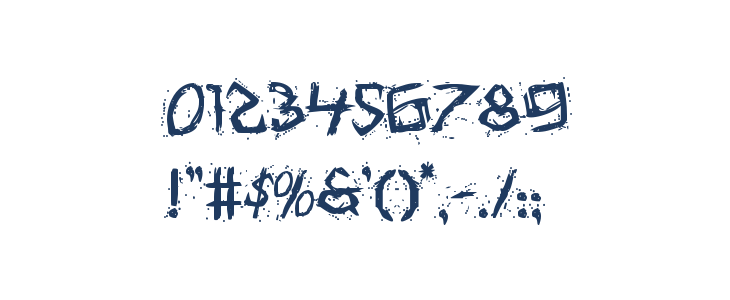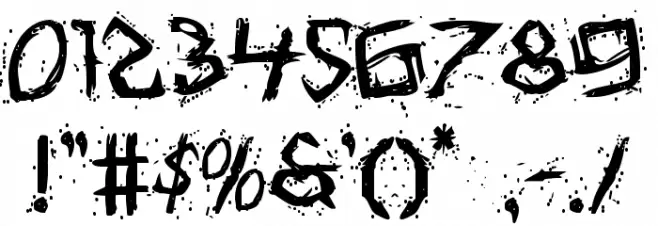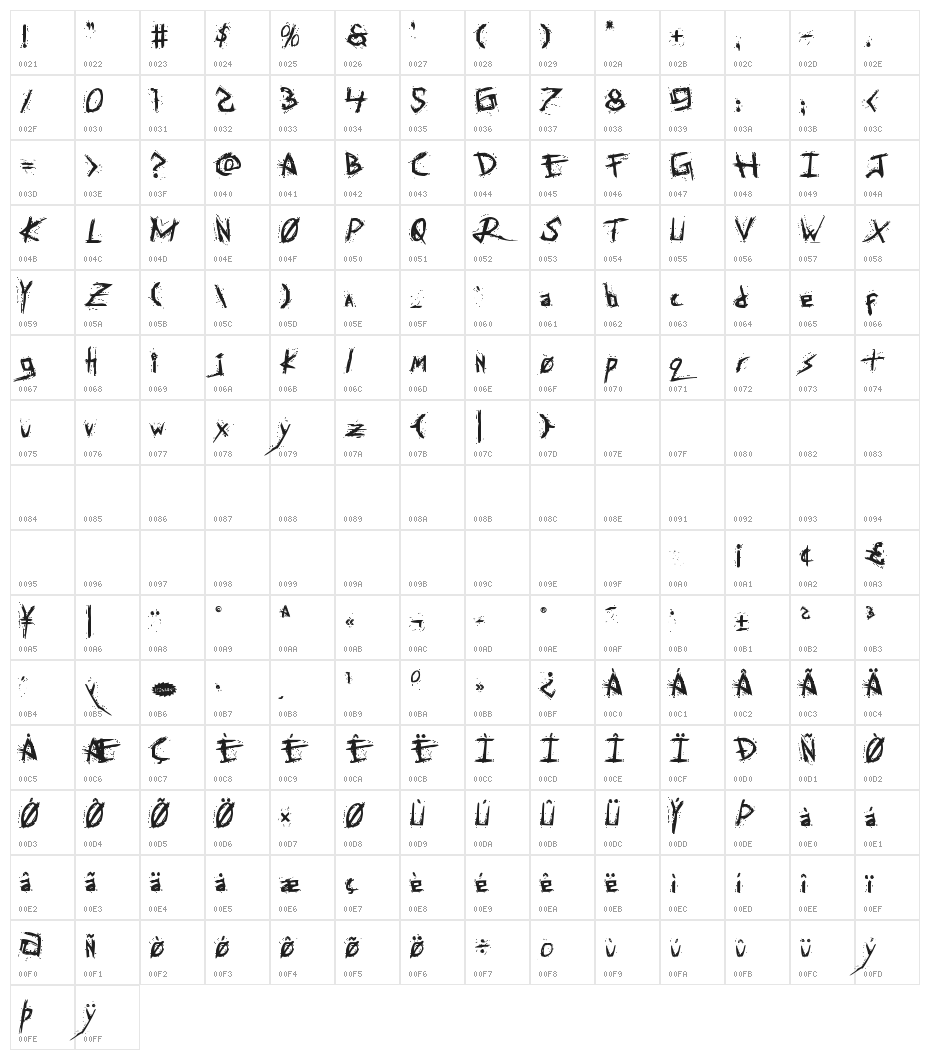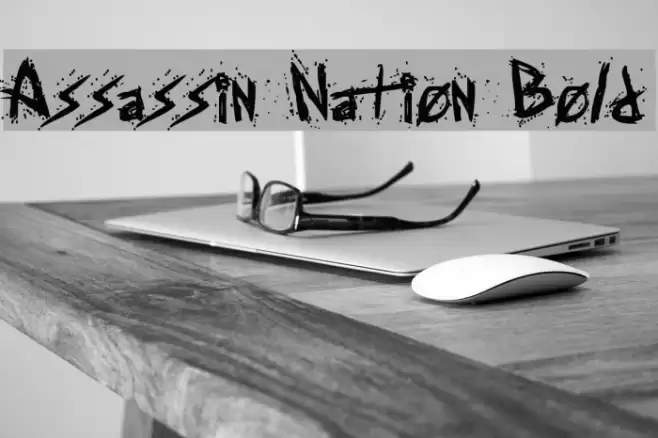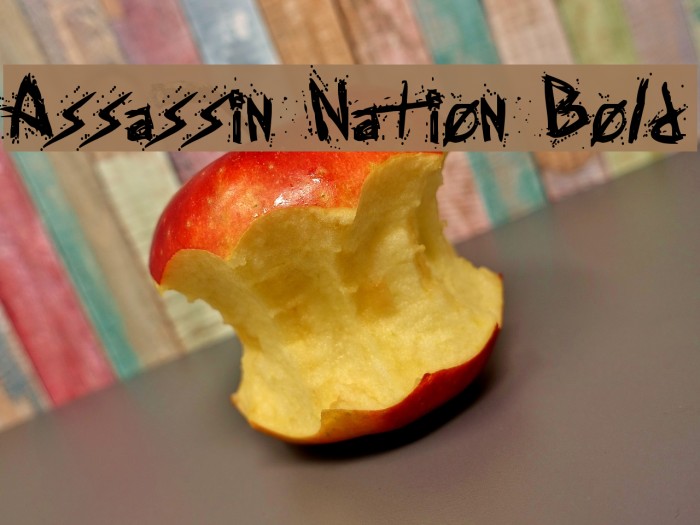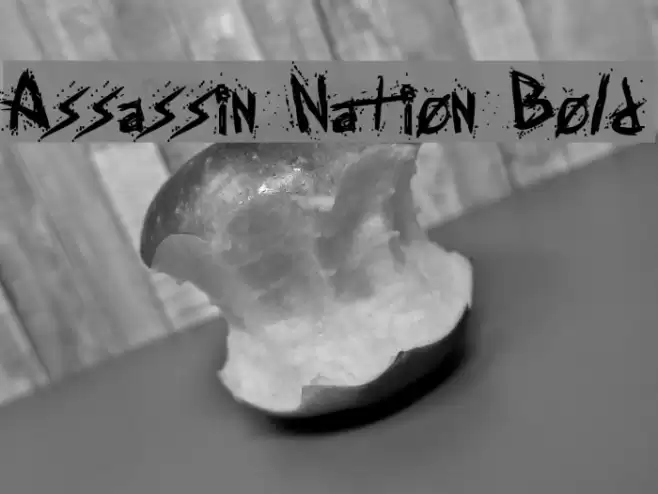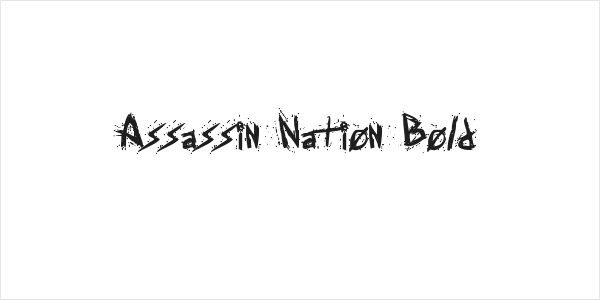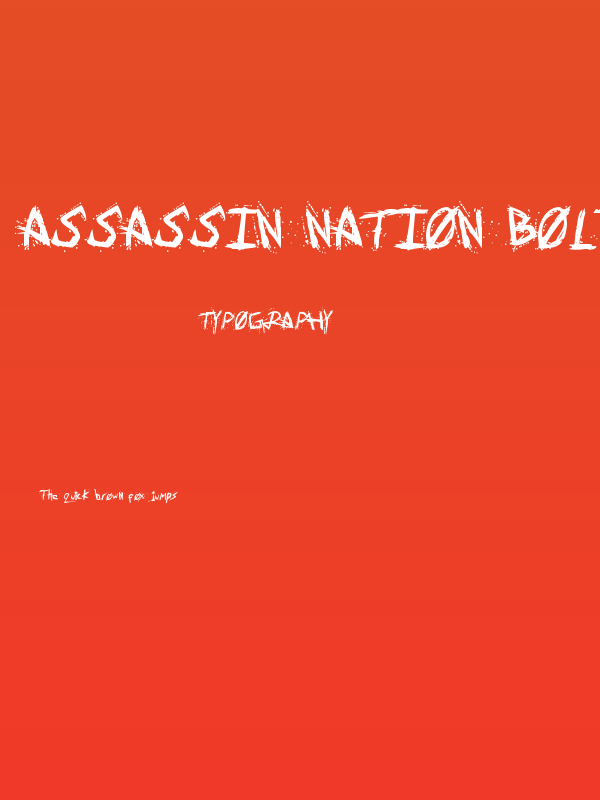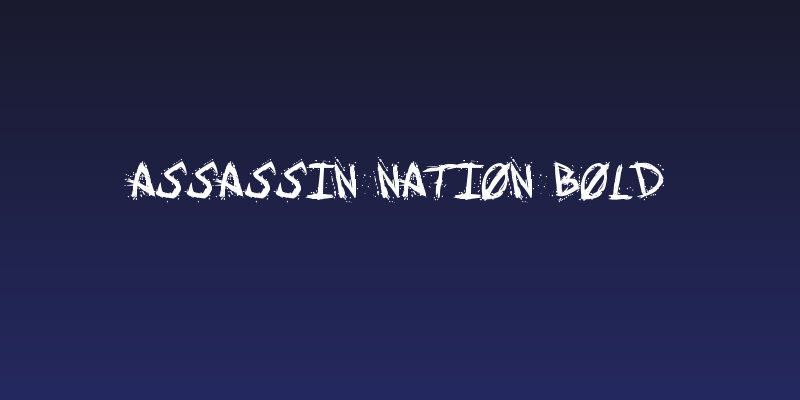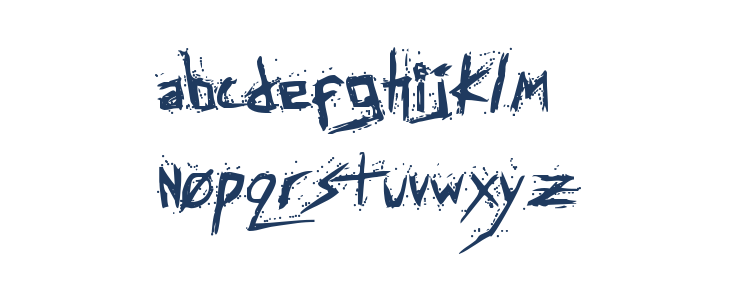
Assassin Nation Bold Font
Assassin Nation Bold Description
This font exudes a gritty, rebellious energy with its jagged, distressed letterforms. Each character appears as if it has been hastily scrawled with a brush, giving it a raw, dynamic feel. The irregular edges and splatter-like details add to its chaotic aesthetic, making it perfect for projects that require a bold, edgy statement. The uppercase and lowercase letters maintain a consistent style, while the numerals and special characters complement the overall design with their unique, rugged appearance.
| Overall Style | Edgy, Rebellious, Grunge |
| Proposed Projects | Ideal for music album covers, streetwear branding, graffiti art, and edgy poster designs. |